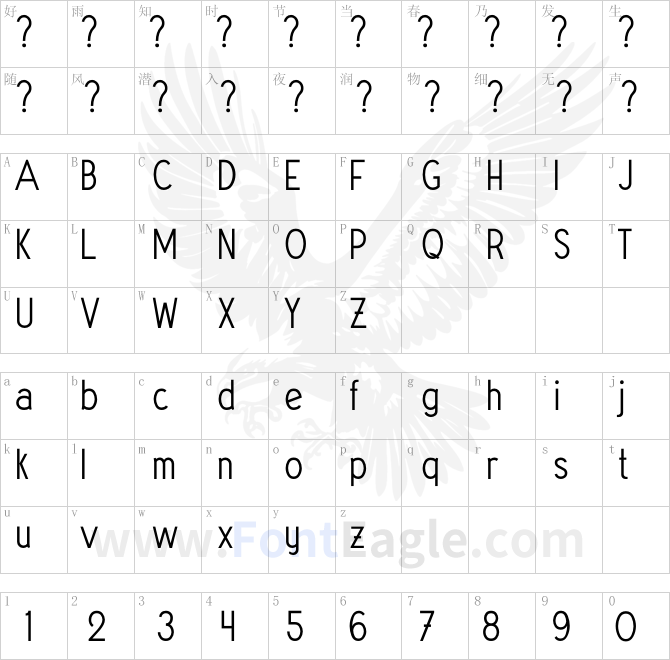
- Font name:Vintage Avalanche
Vintage-Avalanche is a great font, widely used in graphic design, single-page menu design, poster design and other fields, and is deeply loved by designers.Vintage-Avalanche download.